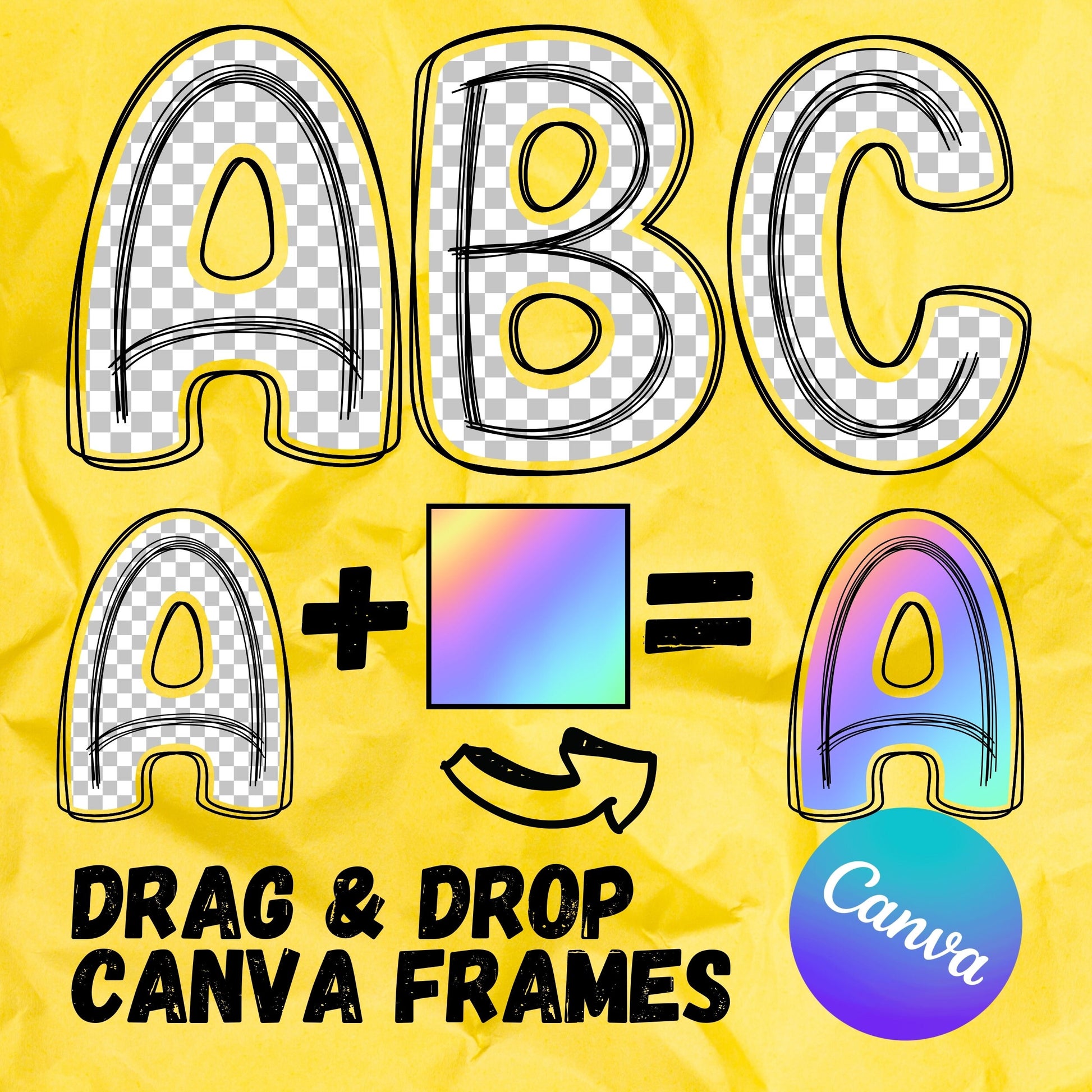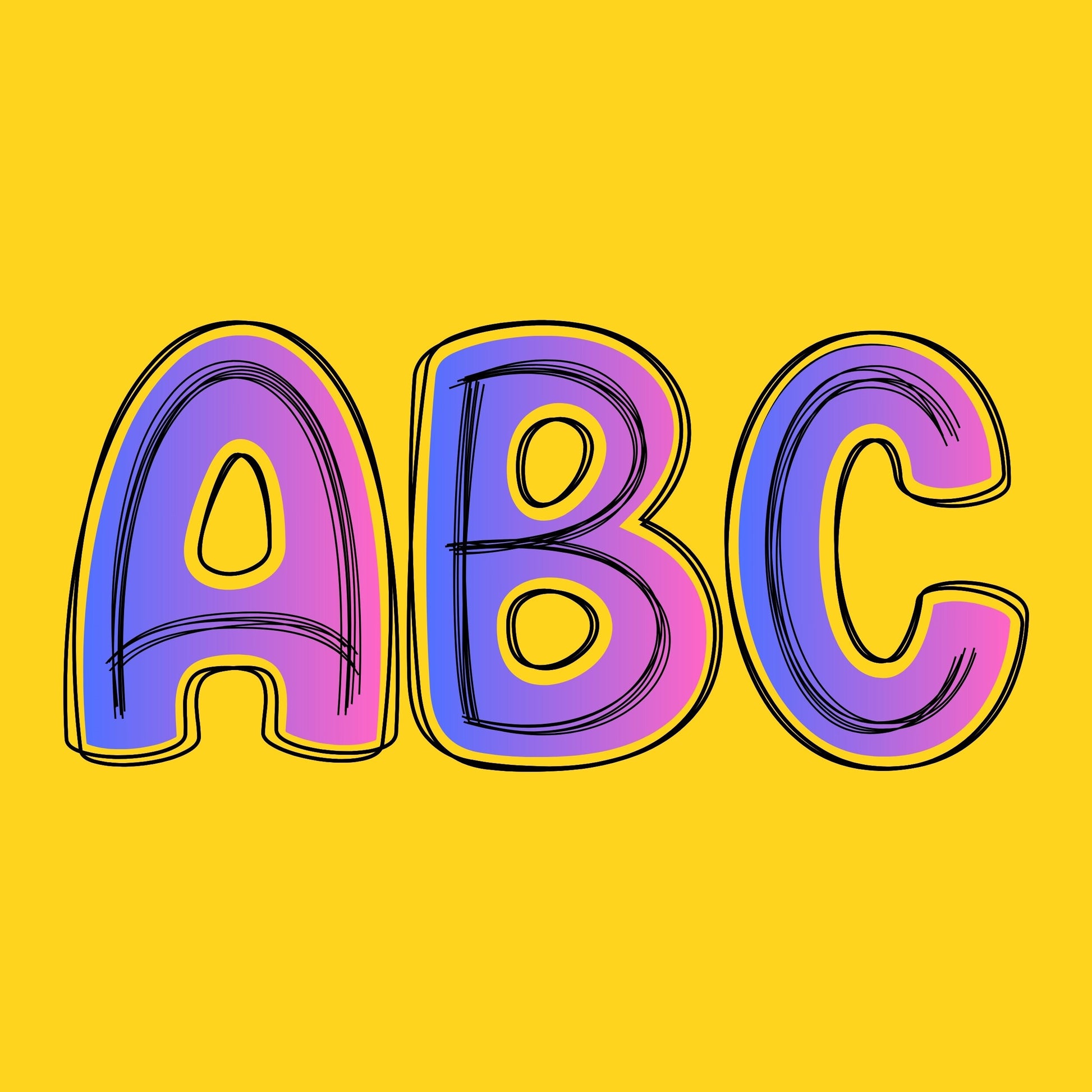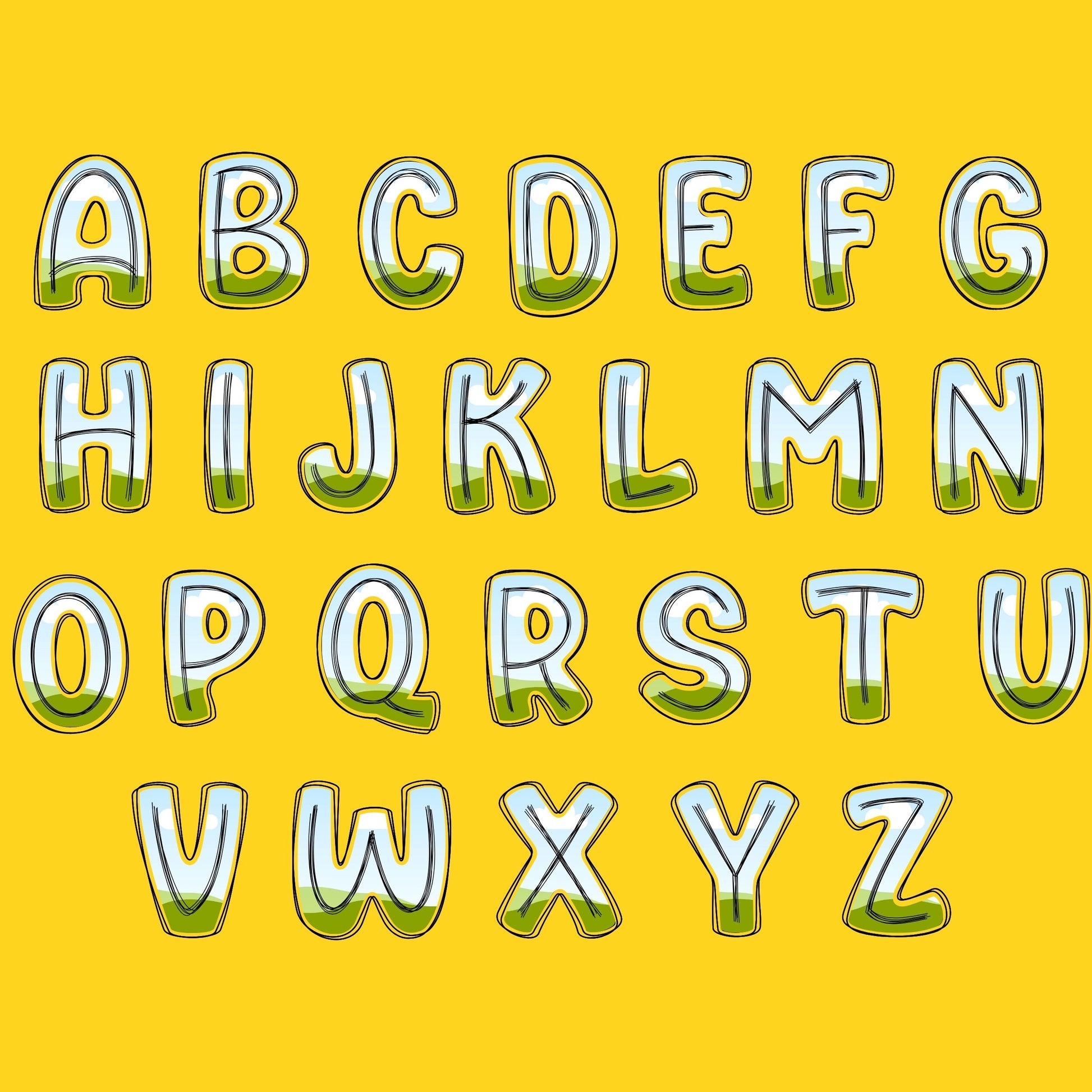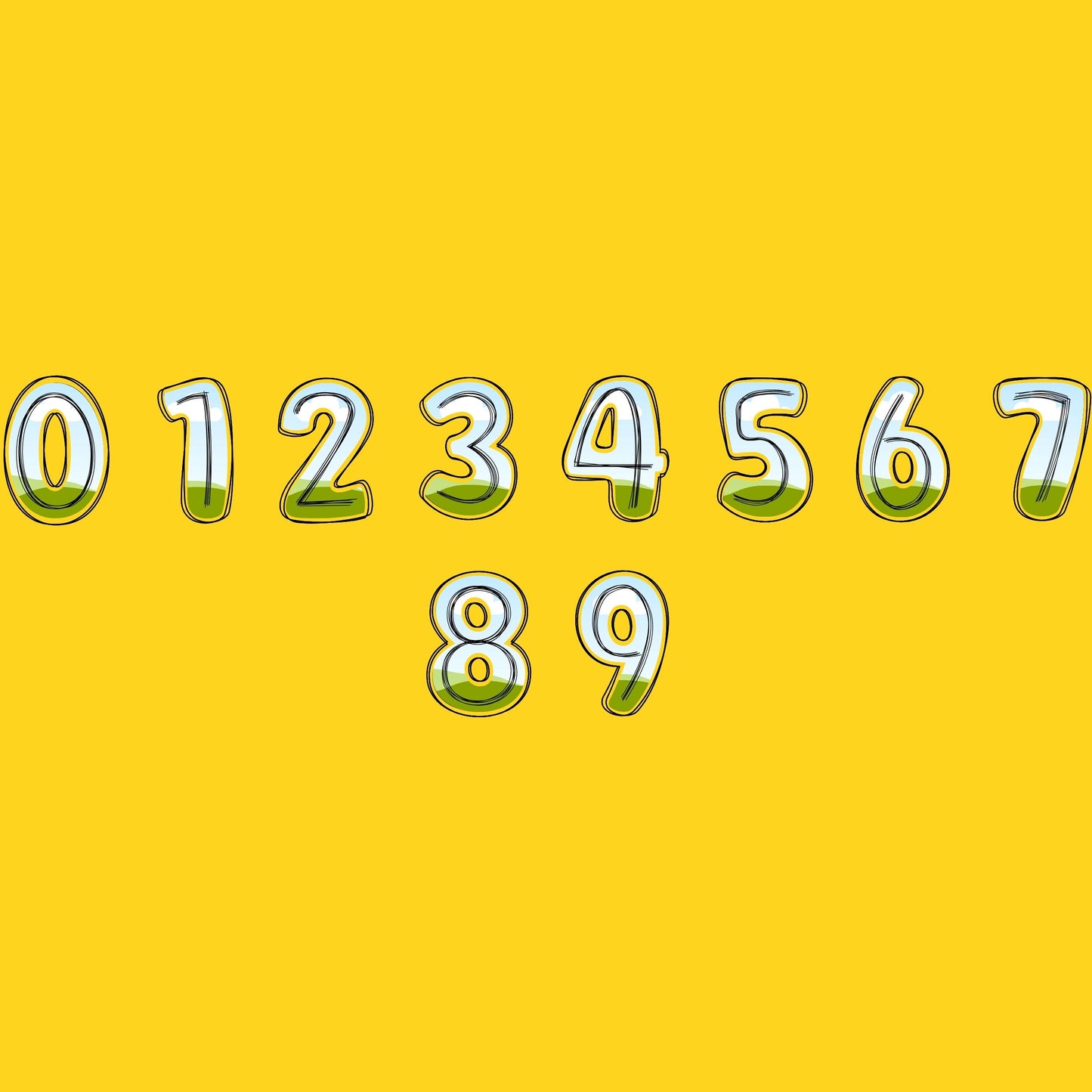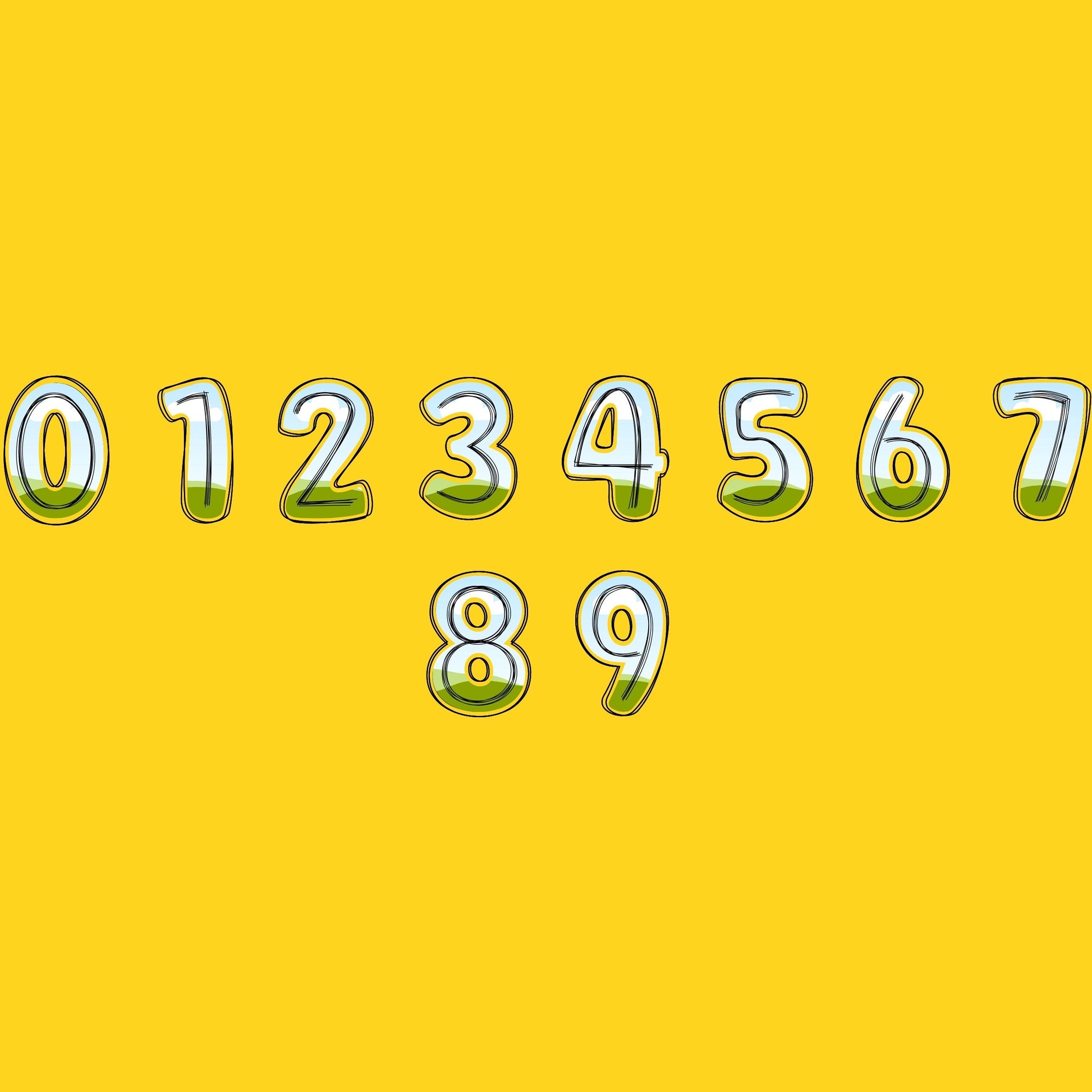
Scribble Doodle Letters - CANVA Templates, Handrawn Alphabet Font, Fillable Letters, Alphaset, Canva Frames, PNG Editable Canva Frame Design
Alphabet Canva Templates. Editable Canva frames for creating custom letters. Can be filled with any image or color to create unique designs. Drag and Drop images, or highlight and select a color in Canva, to fill and customize these editable frames.
- A to Z Letter Frames
- Numbers